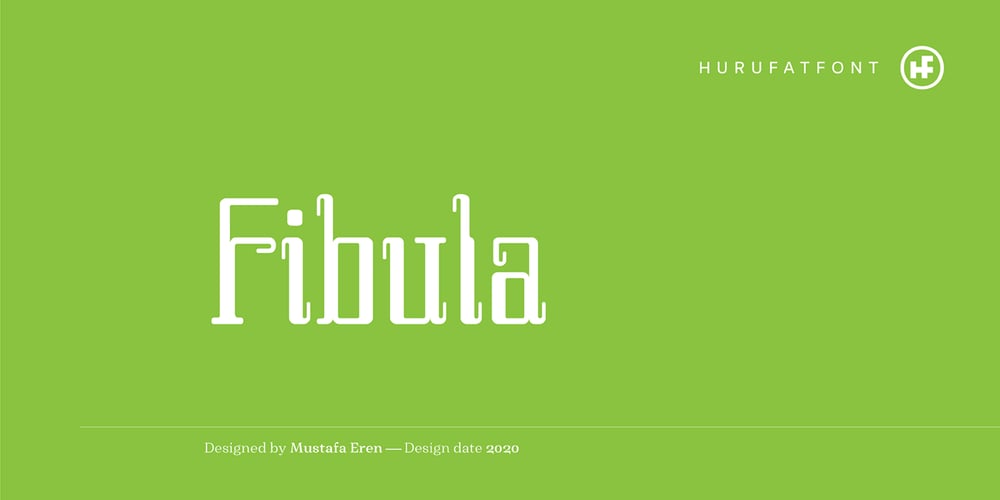
Fibula Font Family was designed by Mustafa Eren and published by Hurufatfont. Fibula contains 1 styles and family package options. “Fibula” has a surprising and lively effect? The design is based on the form of a safety-pin.Fibula display font offers designers creative alternatives to create brands, packaging and titles.